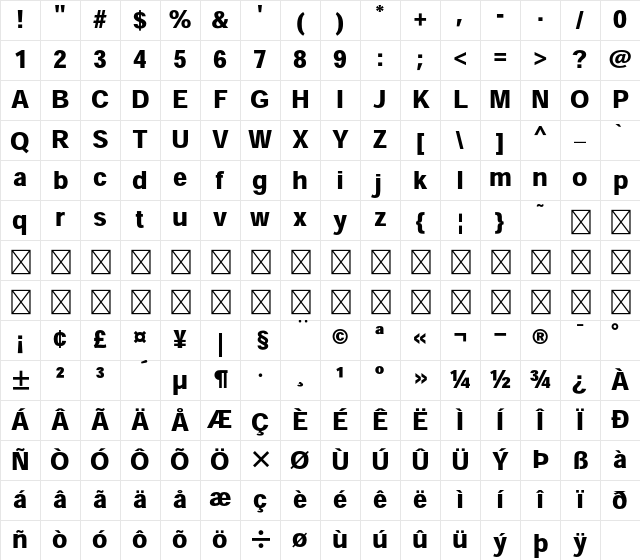
Complete Heisei Kaku Gothic Std W9 glyph index. Displaying only characters natively supported by Heisei Kaku Gothic Std W9 font.
Heisei Kaku Gothic Std takes a clean, functional approach - its unadorned letterforms prioritise legibility and work reliably across screen and print environments.
Font Pairing: Works well alongside a characterful serif or display font that can carry the expressive load while Heisei Kaku Gothic Std handles the functional copy.
Pro Tip: Use Heisei Kaku Gothic Std for UI labels, navigation, and short-form body copy where clean legibility is the priority.